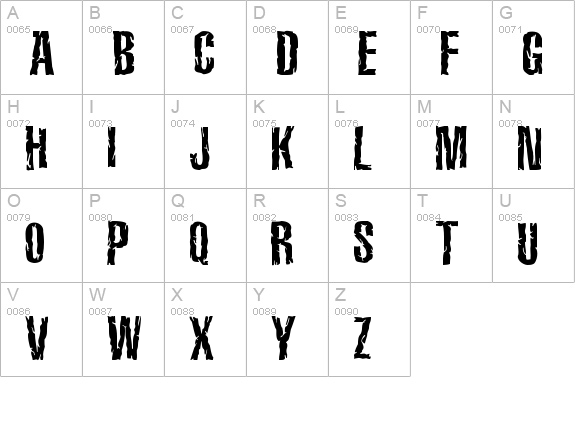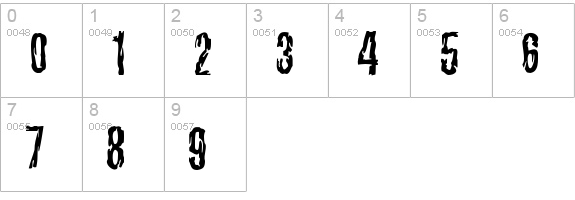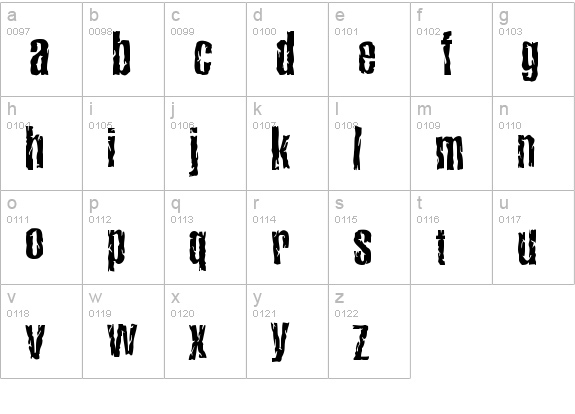
Terrorama Chiseled Font Details
Terrorama Chiseled font is a captivating display font that exudes a sense of boldness and power. Its chiseled edges and strong, angular forms give it a distinct and striking appearance, making it perfect for creating eye-catching headlines, posters, and logos. This font is meticulously crafted to convey a sense of terror and intensity. Each character is expertly designed with sharp corners and deep cuts, creating a visual impact that is sure to leave a lasting impression on your audience. With its unique and edgy aesthetic, Terrorama Chiseled font is ideal for projects that require a touch of darkness and intrigue. Whether you're working on a horror movie poster or a heavy metal album cover, this font will elevate your design to new heights. The best part is, Terrorama Chiseled font is freely available to download at FontsMarket.com. You can unleash your creativity without any limitations or restrictions. Take advantage of this opportunity to add a touch of terror to your designs, and watch them come to life with this powerful font. Don't miss out on the chance to make a bold statement with Terrorama Chiseled font. Download it for free today at FontsMarket.com and take your designs to the next level.